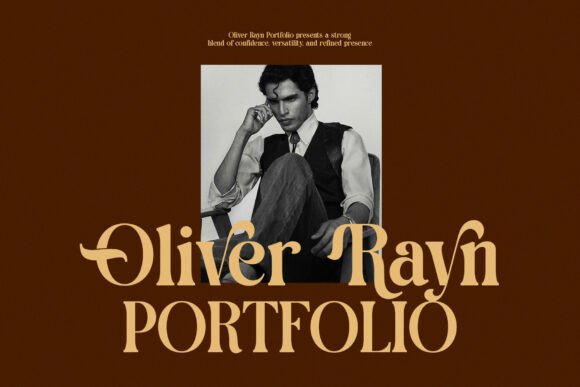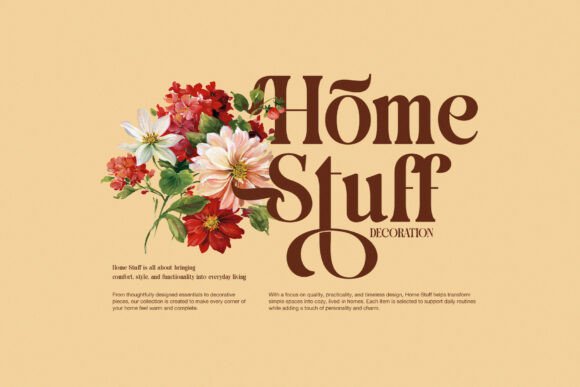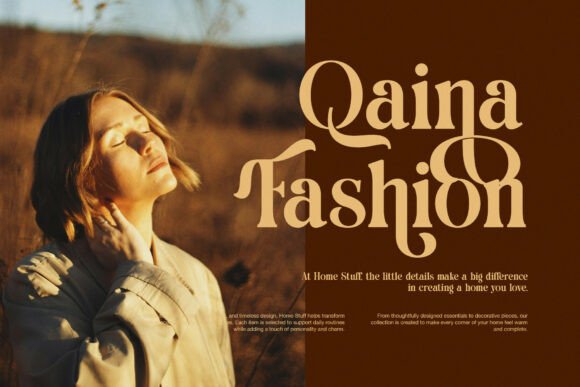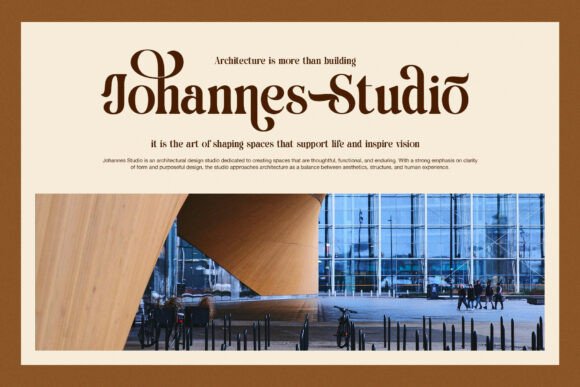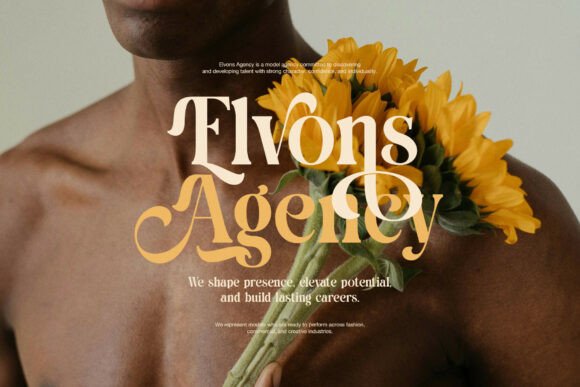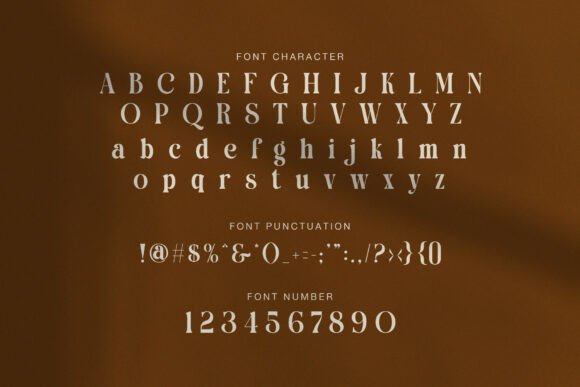
Introduction to Manillo Font
As a designer, you’ve probably found yourself staring at a blank screen, trying to bring a creative project to life. The cursor blinks, taunting you to make a move. But then, it happens – a spark of inspiration strikes, and the words start flowing. The right font can be the catalyst for this moment of clarity, and that’s where the Manillo Font comes in.
With its elegant serif display, the Manillo Font is designed to convey confidence, warmth, and refined personality. Inspired by the world of fashion and luxury lifestyle branding, this high-quality font is perfect for designers looking to elevate their designs. Its smooth contrast, rounded terminals, and artistic letterforms make it a valuable resource for any design project, from logos to titles.
Whether you’re working on a creative project with a transparent background or need a font that adds a touch of sophistication, the Manillo Font is a free download that’s sure to impress. Its rich alternates and stylish ligatures allow designers to build expressive typography that feels handcrafted and unique.
Key Features of Manillo Font
Honest Review: Manillo Font
As a designer, I’m always on the lookout for high-quality fonts to enhance my creative projects. Recently, I came across the Manillo Font, and I’m excited to share my thoughts on this design resource.
One of the standout features of the Manillo Font is its beautiful, elegant design. The font is perfect for titles, headings, and other text elements where you want to make a statement. It’s also versatile enough to work well in both print and digital designs. I love how the font looks on a transparent background – it really makes the text pop.
- Beautiful, elegant design
- Perfect for titles, headings, and other text elements
- Versatile and works well in both print and digital designs
- Limited language support – only available in a few languages
- No bold or italic weights available
Overall, I’m impressed with the Manillo Font. It’s a high-quality design resource that’s perfect for designers working on creative projects. While it has some limitations, I believe it’s a great addition to any font collection.
Common Use Cases for Manillo Font
Manillo Font is perfect for creative projects that require a high-quality, premium look. Some common use cases include branding and logo design, advertising and marketing materials, and business cards and resumes.